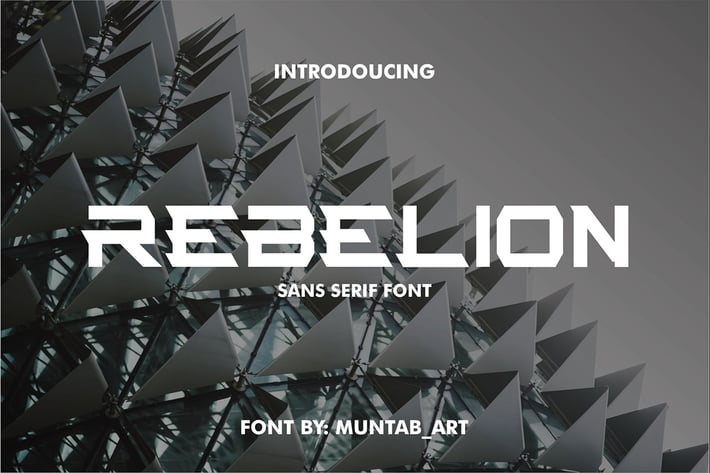
Rebelion | Modern Font
Rebelion fonts includes uppercase letters, numerals, a large range of punctuation. sans serif font with modern style. Created for poster, web design, branding, illustrations, badges and some other works.